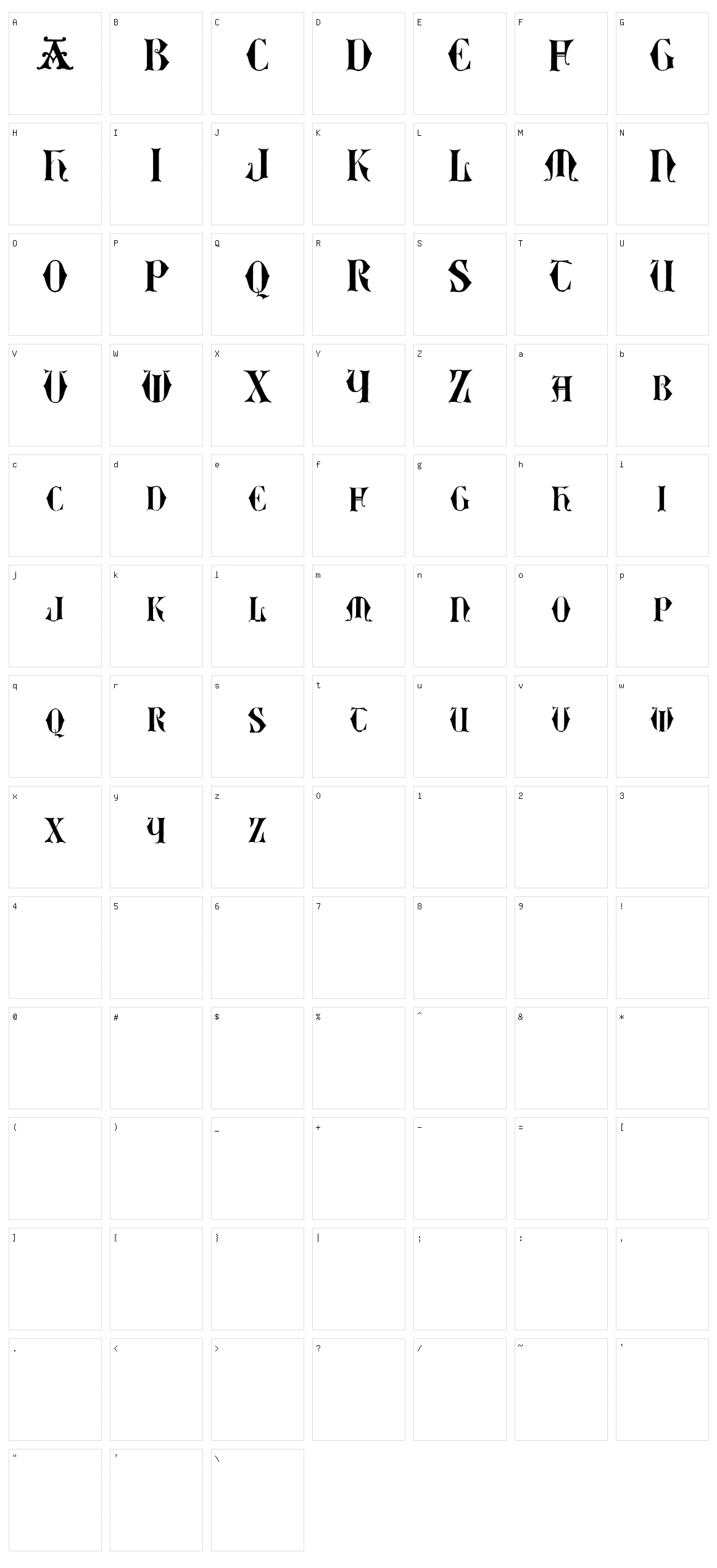
The free font Easy Lombardic Two is carefully designed by Intellecta Design, showcasing a thoughtful balance of creativity and usability and belongs to the Gothic font family. When you download the ZIP file, it contains only 51.81 KB of font files, making it lightweight and quick to download. Please review the license details below to understand permitted usage and distribution rights. If license information is not available, we recommend using this font for personal projects only or contacting the author directly for commercial usage permissions.